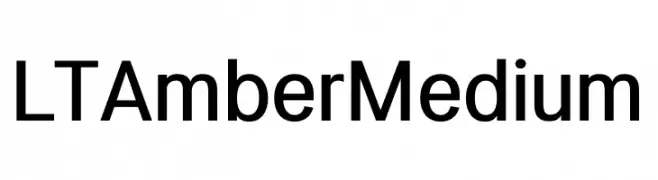
( Fonts by Typodermic Fonts )
An elegant serif font with an italic slant, featuring moderate contrast and a classic style.
( Fonts by Typodermic Fonts )
A modern serif font with clean lines and elegant curves.
( Fonts by Typodermic Fonts )
An elegant italic font with smooth lines and moderate contrast, perfect for classic and sophisticated designs.
( Fonts by Typodermic Fonts )
A classic serif font with a modern twist, featuring elegant strokes and subtle serifs.
( Typodermic Fonts - Ray Larabie - www.typodermicfonts.com/ )
A modern, angular italic font with geometric precision.
( Typodermic Fonts - Ray Larabie - www.typodermicfonts.com/ )
A geometric, modern font with clean lines and angular edges.
( Typodermic Fonts - Ray Larabie - www.typodermicfonts.com/ )
A modern, geometric italic font with clean lines and sharp angles.
( Typodermic Fonts - Ray Larabie - www.typodermicfonts.com/ )
A geometric and modern font with clean lines and sharp angles.
( Typodermic Fonts - Ray Larabie - www.typodermicfonts.com/ )
A modern, italicized font with a sleek, technical look and consistent stroke width.
( Typodermic Fonts - Ray Larabie - www.typodermicfonts.com/ )
A geometric, angular font with a modern and technical style.
( Typodermic Fonts - Ray Larabie - www.typodermicfonts.com/ )
A modern, italic, and condensed font with a sleek and dynamic style.
( Typodermic Fonts - Ray Larabie - www.typodermicfonts.com/ )
A tall, narrow, and modern font with clean lines and a structured appearance.
( Typodermic Fonts - Ray Larabie - www.typodermicfonts.com/ )
A sleek, modern italic font with elongated characters and smooth curves.
( Typodermic Fonts - Ray Larabie - www.typodermicfonts.com/ )
A modern, geometric sans-serif font with clean lines and balanced proportions.
( Typodermic Fonts - Ray Larabie - www.typodermicfonts.com/ )
A modern, geometric font with clean lines and uniform stroke width.